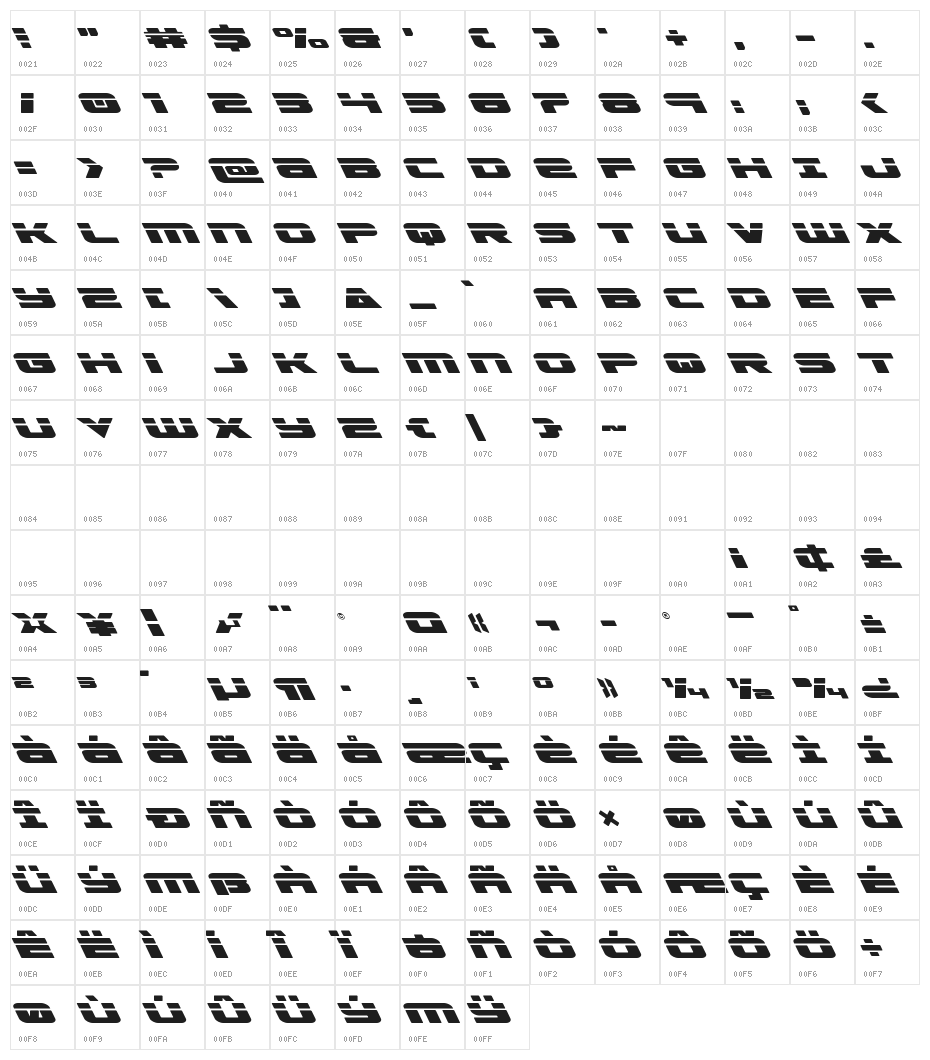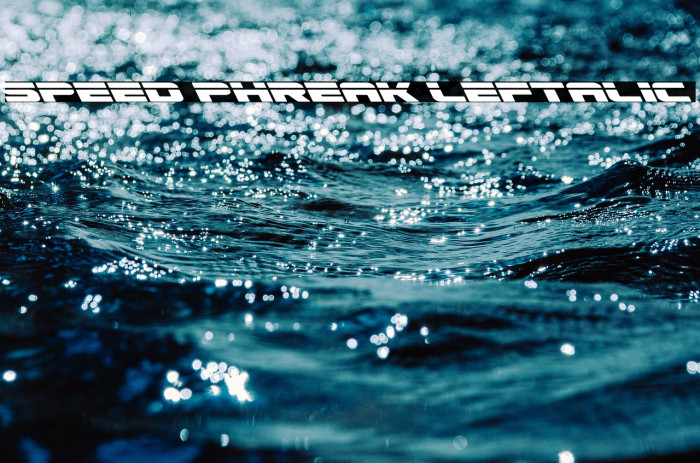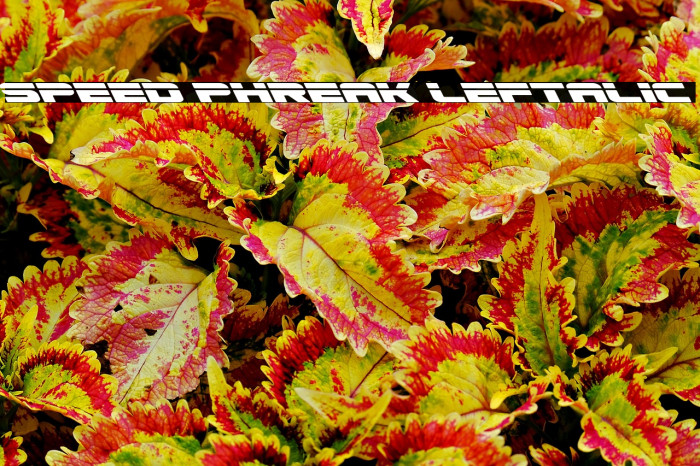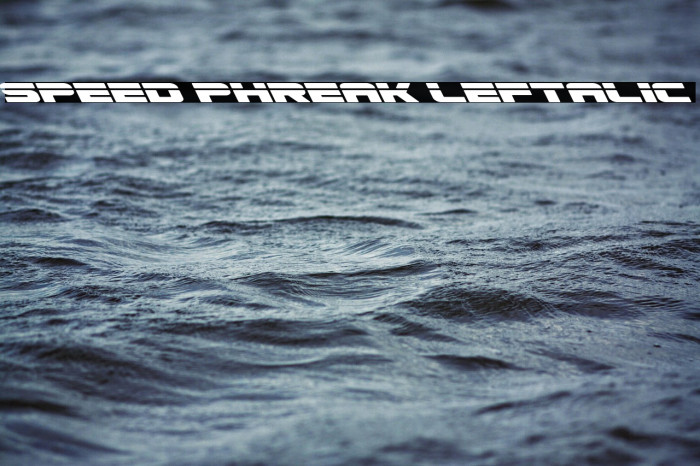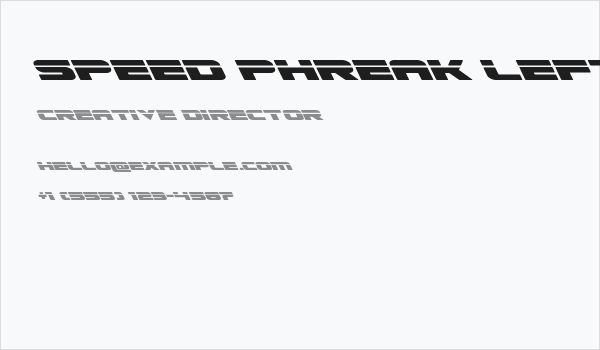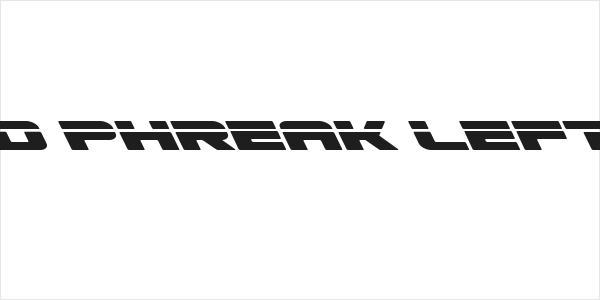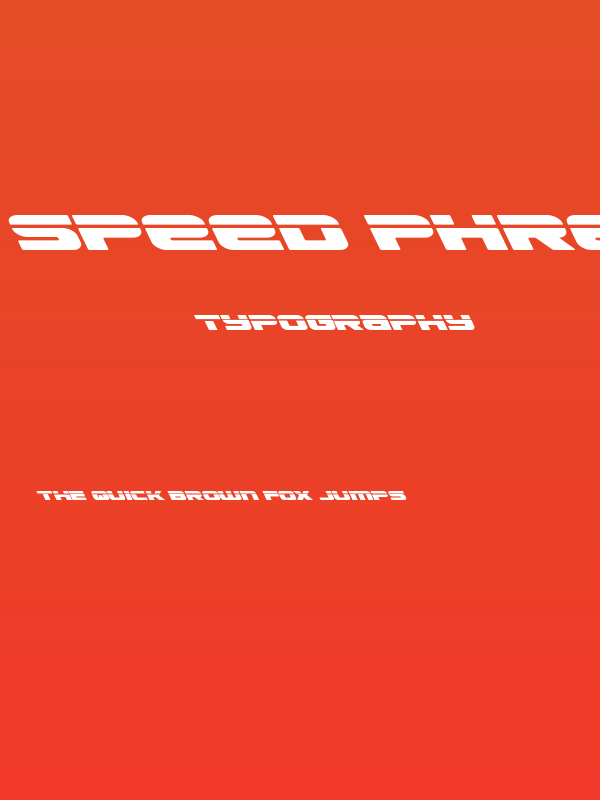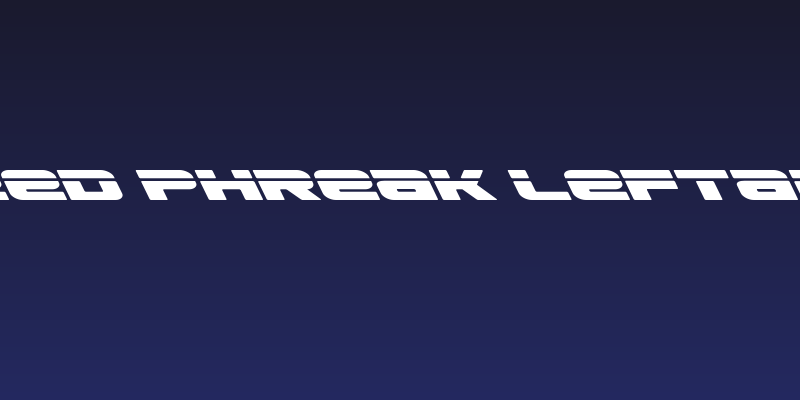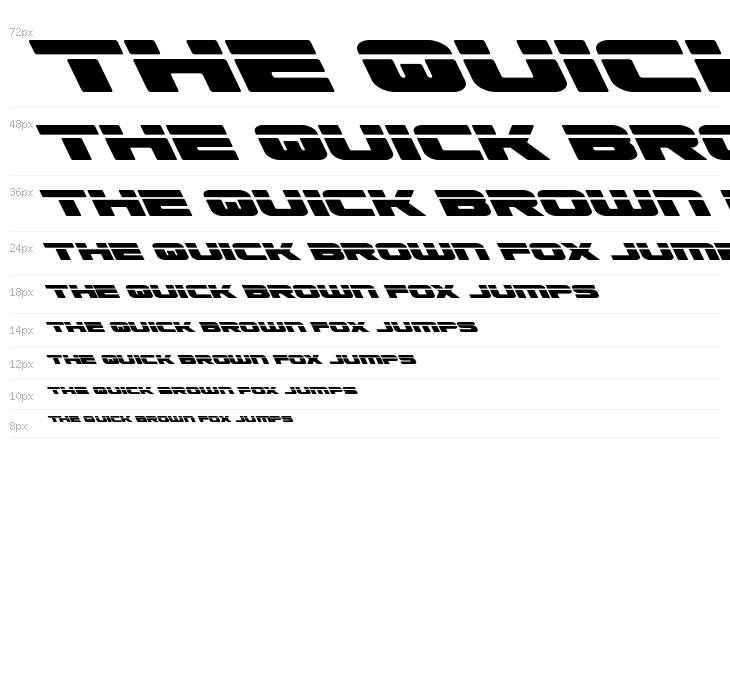
Speed Phreak Leftalic Font
Speed Phreak Leftalic Description
This font features a bold, futuristic design with a distinct italic slant to the left, giving it a dynamic and fast-paced appearance. The characters are constructed with thick, blocky strokes and sharp angles, creating a sense of movement and speed. The uppercase and lowercase letters maintain a consistent style, with the lowercase mirroring the uppercase in form and weight. Numbers and special characters follow the same design principles, ensuring uniformity across all glyphs. The overall aesthetic is modern and aggressive, making it suitable for projects that require a strong visual impact.
| Proposed Projects | Ideal for sports branding, automotive designs, video game titles, and tech-related projects. |